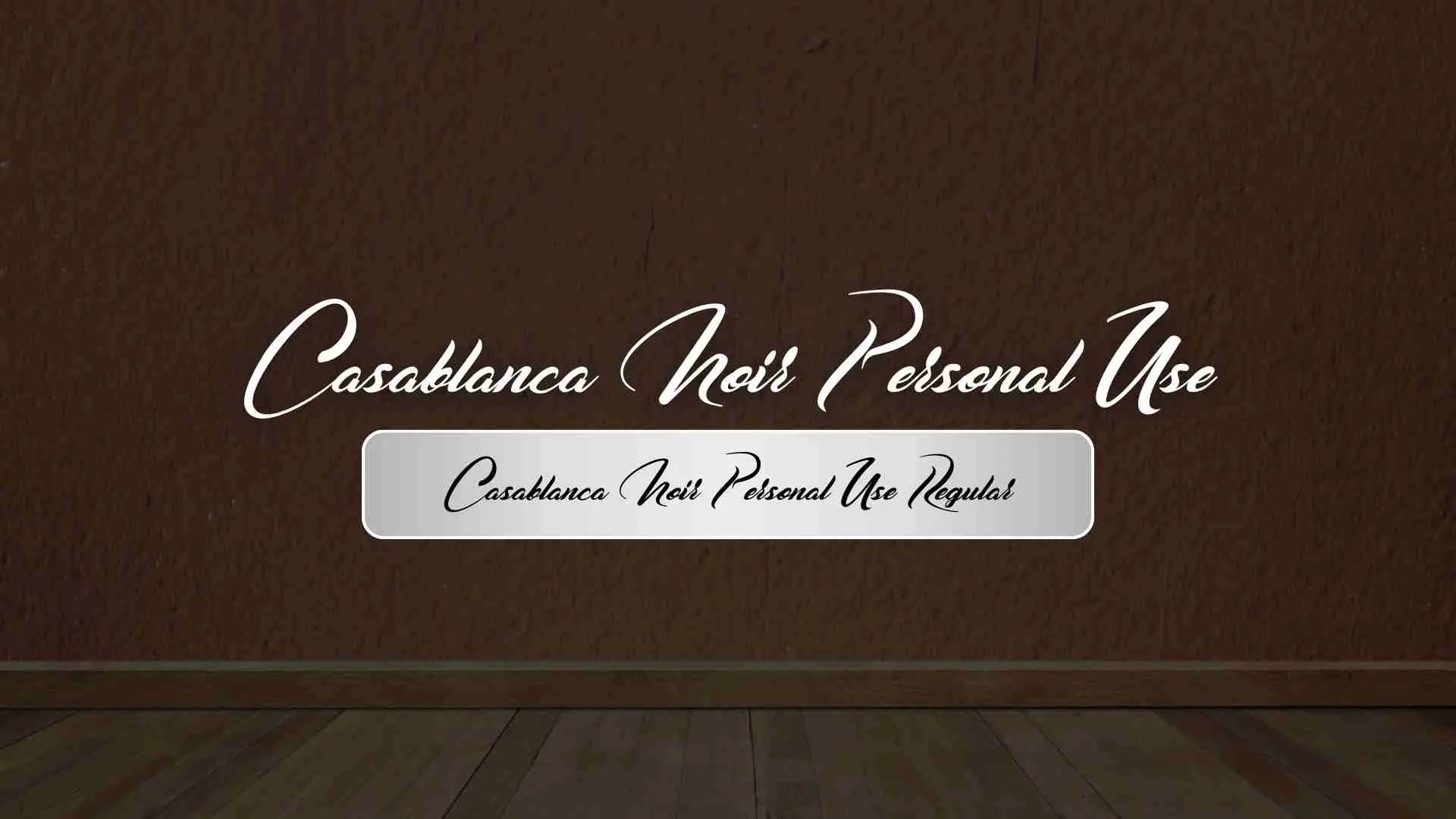
Casablanca Noir Personal Use Regular
Casablanca Noir Personal Use Regular Font
The font Casablanca Noir Personal Use Regular, designed by Billy Argel, falls under the Handwritten, Script category & Casablanca Noir Personal Use font family. Its smooth, flowing letterforms make it a versatile choice for projects that require both elegance and readability. Casablanca Noir Personal Use is particularly well-suited for Branding, Wedding Invitations, Product Packaging, Creative Projects, Social media graphics, Logos and Event Stationery. With its balance of simplicity and decorative appeal, this font brings a polished touch to both personal and professional designs.